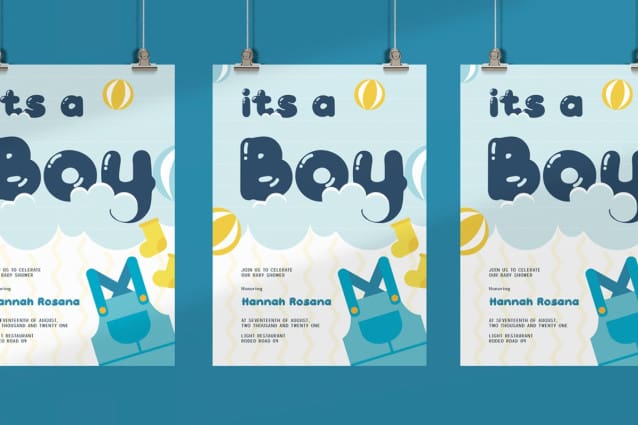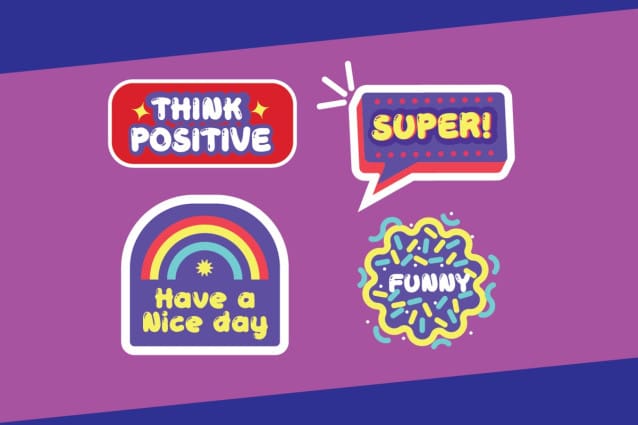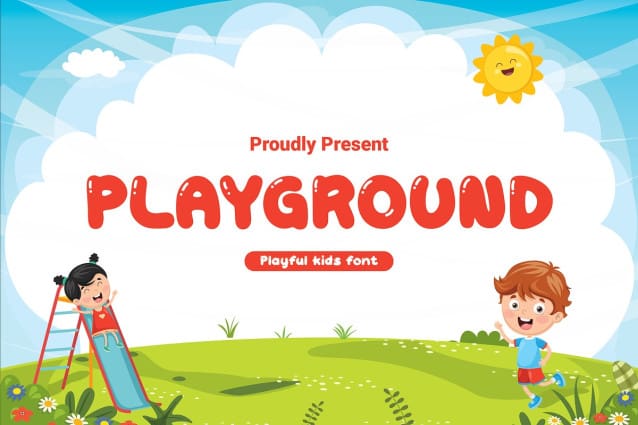
Playground Playful Kids Font
Playground Playful Kids Font – the ultimate font for playful kids! This whimsical cartoon font is perfect for all your children-themed projects, from posters to film titles to YouTube videos. The cute and funny letters will capture the hearts of kids and adults alike, making it an ideal choice for all kinds of designs.
With its bold and rounded letters, PLAYGROUND will add a touch of fun and innocence to any project. Whether you’re creating a poster for a school event or a movie title for a family-friendly film, this font will definitely catch the eye of your target audience.
The versatility of this font makes it a must-have for any designer who works with kids-related content. From book covers to birthday cards, PLAYGROUND will make your designs stand out and leave a lasting impression. And with its easy-to-read letters, even the youngest readers will be able to enjoy your content!